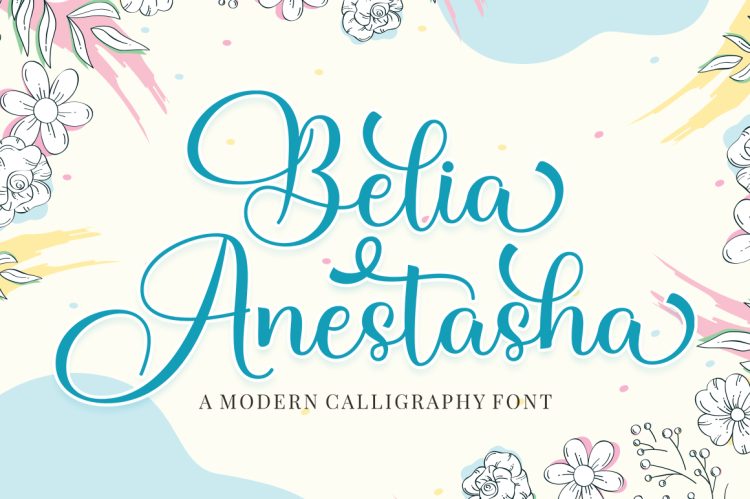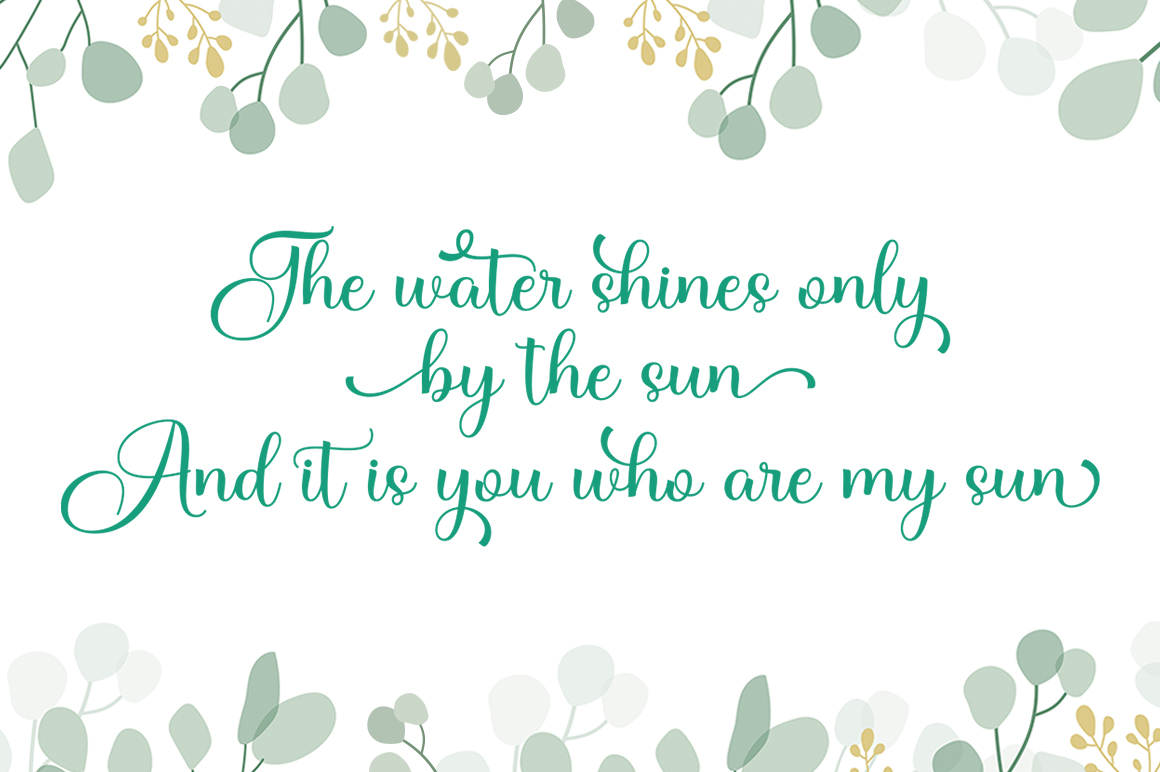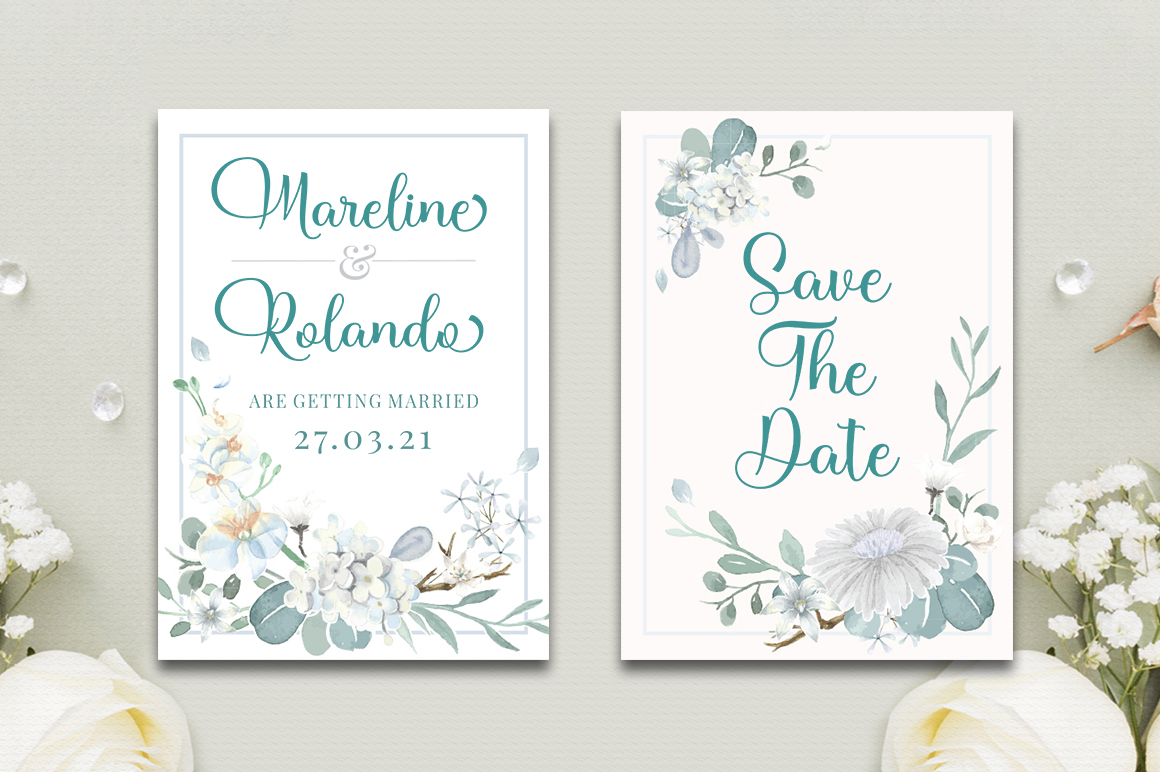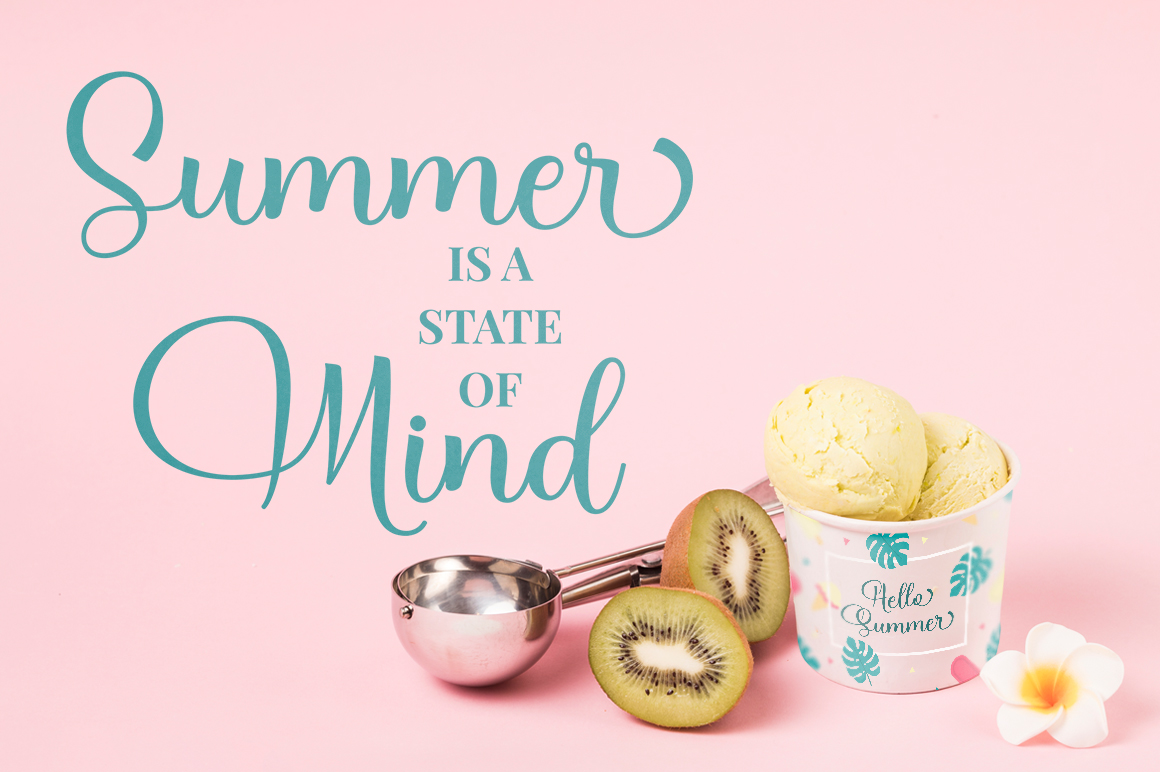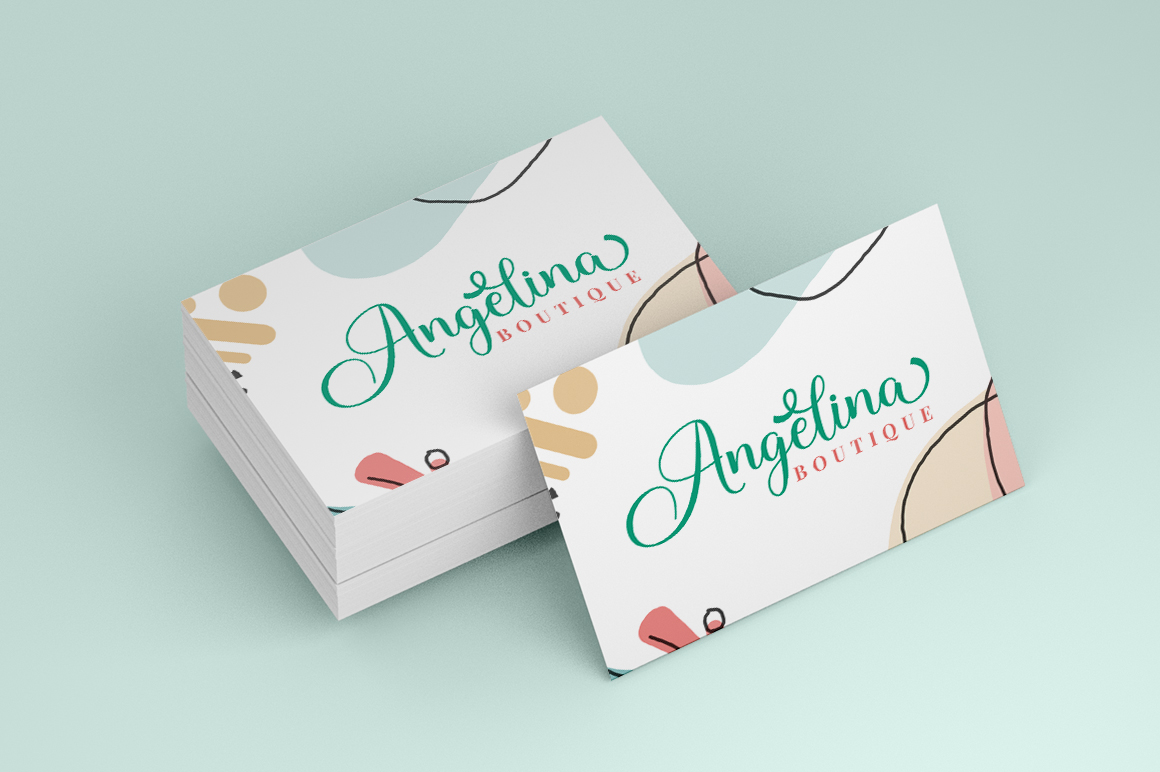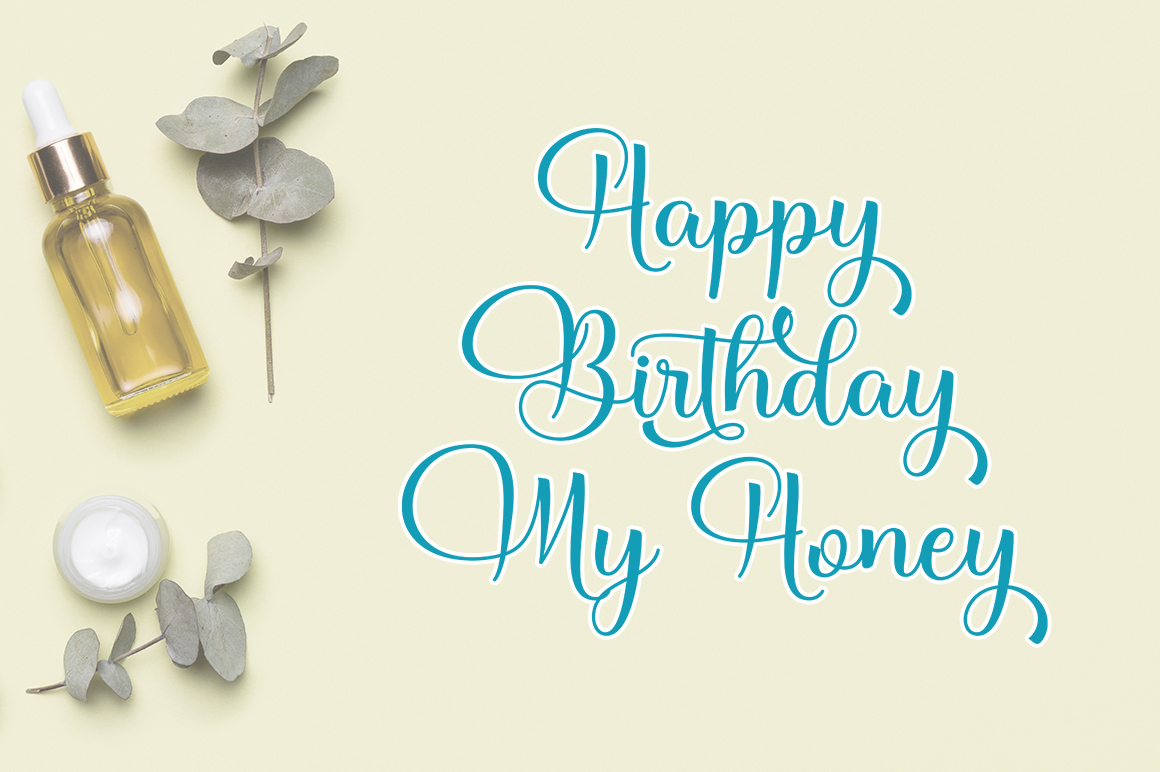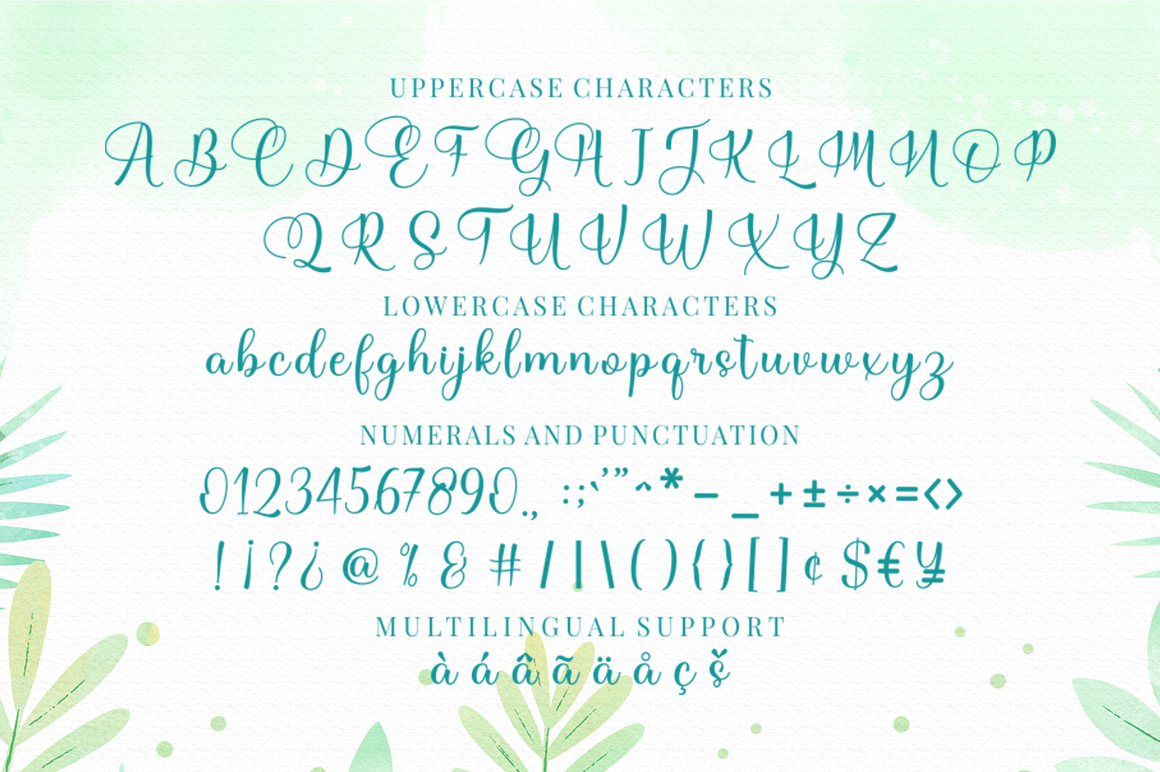
Belia Anestasha Script is modern calligraphy font, including Regular. This font is casual and pretty with swashes. Can used for various purposes. such as logo, product packaging, wedding invitations, branding, headlines, signage, labels, signature, book covers, posters, quotes and more.